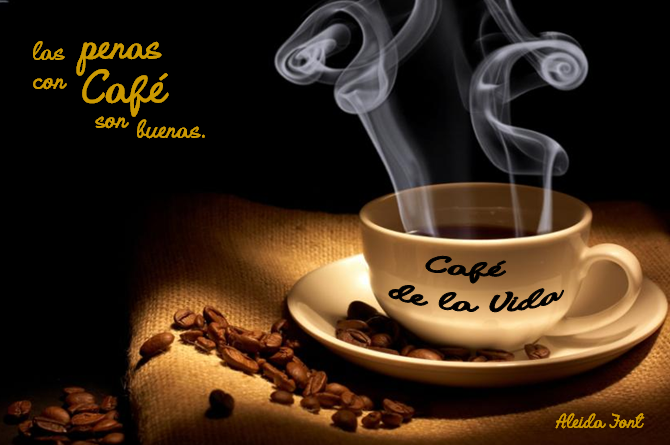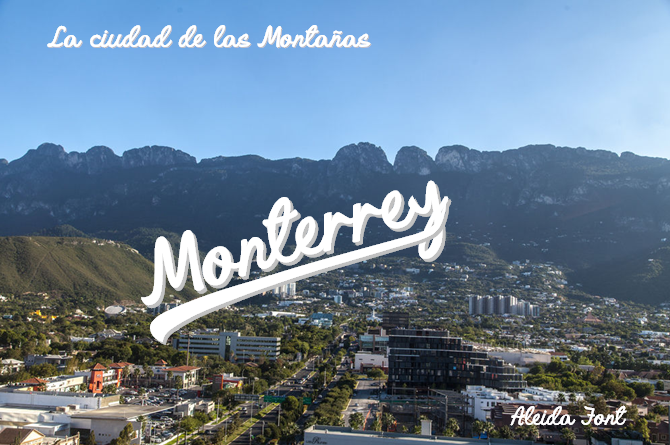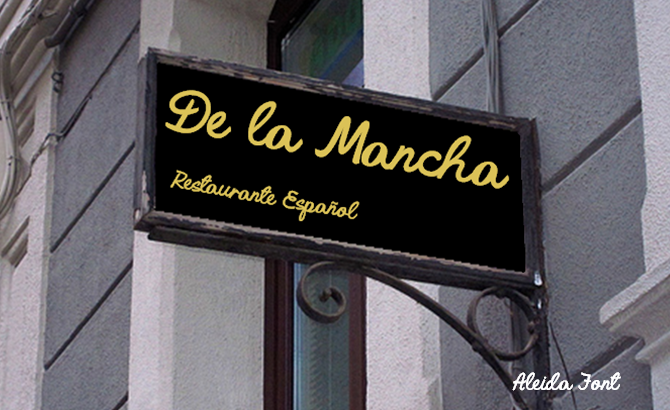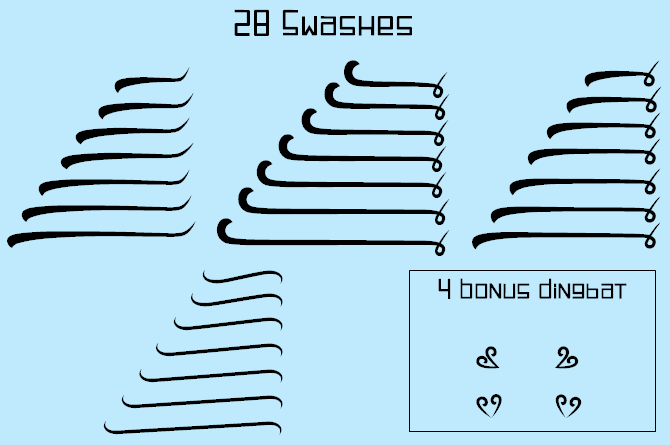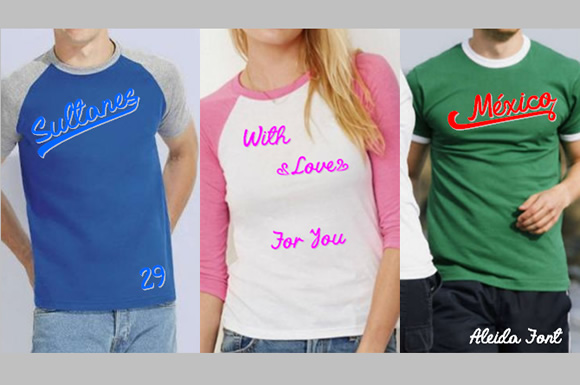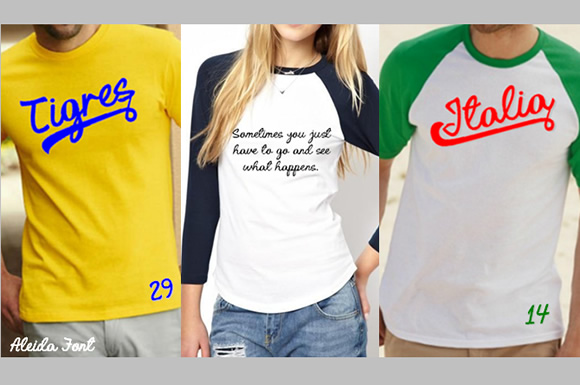
Aleida Font: A Handmade Typeface for Creative Projects
Are you a designer or crafter looking for a unique and versatile font to elevate your projects? Look no further than Aleida Font, a beautiful handmade typeface created by Jaime Rangel Castro. In this article, we’ll dive into the features and benefits of Aleida Font, and explore how it can be used in a variety of creative projects.
What is Aleida Font?
Aleida Font is a carefully crafted handmade typeface designed by Jaime Rangel Castro. The font is characterized by its distinctive, hand-drawn aesthetic, which gives it a warm and personal feel. With its unique blend of elegance and playfulness, Aleida Font is perfect for a wide range of projects, from logos and posters to apparel printing, labels, quotes, headlines, and more.
Features of Aleida Font
So, what makes Aleida Font so special? Here are just a few of its key features:
- Handmade with love: Aleida Font is a genuine handmade typeface, crafted with attention to detail and a passion for typography.
- Unique character: The font’s distinctive hand-drawn style gives it a one-of-a-kind personality that’s sure to stand out.
- Versatile: Aleida Font is suitable for a wide range of projects, from creative branding and advertising to crafting and DIY projects.
- Easy to read: Despite its handmade aesthetic, Aleida Font is surprisingly legible, making it perfect for use in body text as well as headlines.
Using Aleida Font in Creative Projects
So, how can you use Aleida Font in your creative projects? Here are a few ideas to get you started:
- Logos and branding: Aleida Font’s unique character makes it perfect for use in logos, business cards, and other branding materials.
- Posters and flyers: The font’s bold, eye-catching style is ideal for use in posters, flyers, and other promotional materials.
- Apparel printing: Aleida Font is a great choice for use on t-shirts, hoodies, and other apparel, adding a touch of personality to your designs.
- Labels and packaging: The font’s clear, legible style makes it perfect for use on labels, packaging, and other materials where readability is key.
- Quotes and headlines: Aleida Font’s elegant, cursive style is ideal for use in quotes, headlines, and other text elements where you want to add a touch of sophistication.
Why Choose Aleida Font?
With so many fonts to choose from, why should you choose Aleida Font for your creative projects? Here are just a few reasons:
- Unique style: Aleida Font offers a distinctive, handmade aesthetic that’s sure to set your projects apart.
- High-quality design: The font is carefully crafted with attention to detail, ensuring a high level of quality and consistency.
- Versatility: Aleida Font is suitable for a wide range of projects, making it a great addition to any designer’s toolkit.
In conclusion, Aleida Font is a beautiful, handmade typeface that’s perfect for designers and crafters looking to add a touch of personality to their projects. With its unique character, versatility, and high-quality design, Aleida Font is a great choice for a wide range of creative projects. Whether you’re working on logos, posters, apparel printing, labels, quotes, headlines, or more, Aleida Font is sure to become a go-to font in your design toolkit.